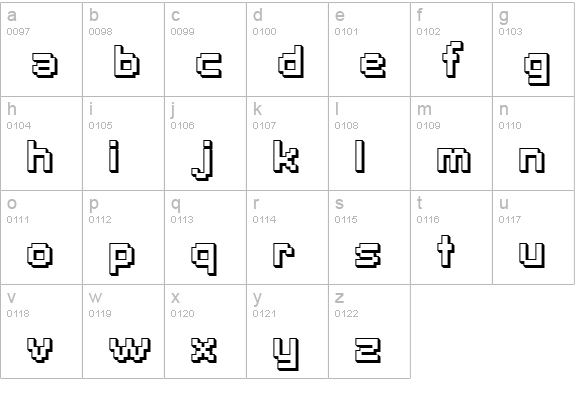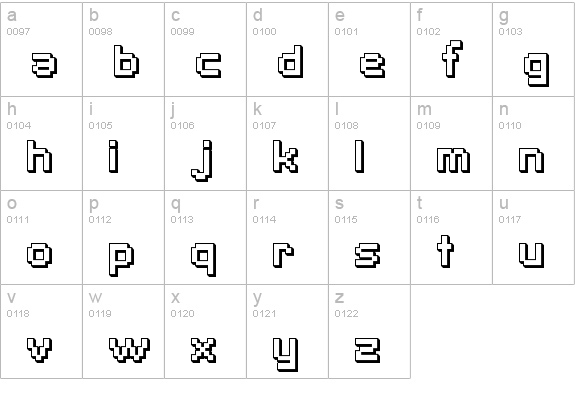
SF Pixelate Shaded Bold Font Details
SF Pixelate Shaded Bold is a strong, high-contrast variant in the SF typeface family \xE2\x80\x94 well suited to headlines, attention-grabbing titles, and strong calls-to-action.
SF Pixelate Shaded Bold font is a visually striking and modern typeface that is sure to make your designs stand out from the crowd. Its bold and captivating appearance is perfect for adding a touch of personality and creativity to any project. The unique pixelated texture of this font adds a sense of digital innovation and contemporary style, making it ideal for tech-related designs, gaming graphics, and futuristic branding. Whether you're designing a cutting-edge website, creating eye-catching posters, or developing an attention-grabbing logo, SF Pixelate Shaded Bold font is here to elevate your designs to the next level. What's even better is that SF Pixelate Shaded Bold font is free! Yes, you read that right. This incredible font is freely available to download at FontsMarket.com. Now you can enhance your designs without breaking the bank. Simply head over to FontsMarket.com, find SF Pixelate Shaded Bold font, and start incorporating this amazing typeface into your projects. With its bold and captivating presence, SF Pixelate Shaded Bold font is sure to leave a lasting impression on your audience. Its unique pixelated design sets it apart from other fonts, making it a versatile choice for a wide range of design projects. So why wait? Take advantage of this amazing opportunity to download SF Pixelate Shaded Bold font for free at FontsMarket.com and let your creativity shine. Transform your designs into works of art with this unforgettable font.